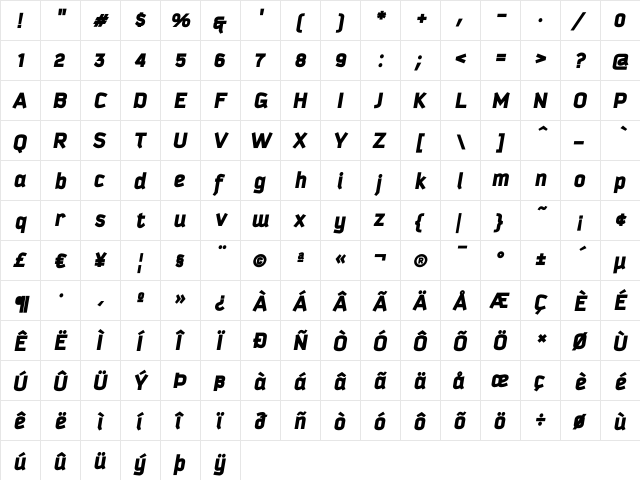
KautivaBlackProC Italic
| Foundry | Alejandro Paul y Alfredo Graziani |
| Designer | Alejandro Paul y Alfredo Graziani |
Design Context for KautivaBlackProC Typeface
KautivaBlackProC takes a measured approach to typography — its balanced proportions and neutral character make it a reliable workhorse for both digital and print work. The slanted form adds forward momentum and visual energy.
Pro Tip: Try KautivaBlackProC for annotation and caption copy alongside an upright companion — the contrast in angle creates a dynamic but ordered typographic system.